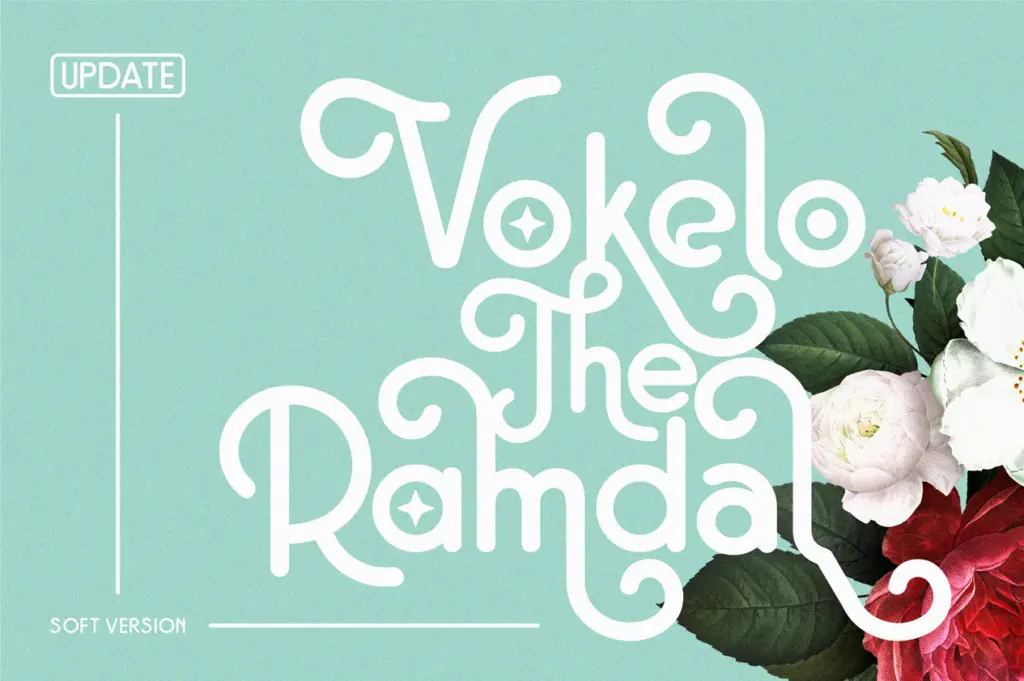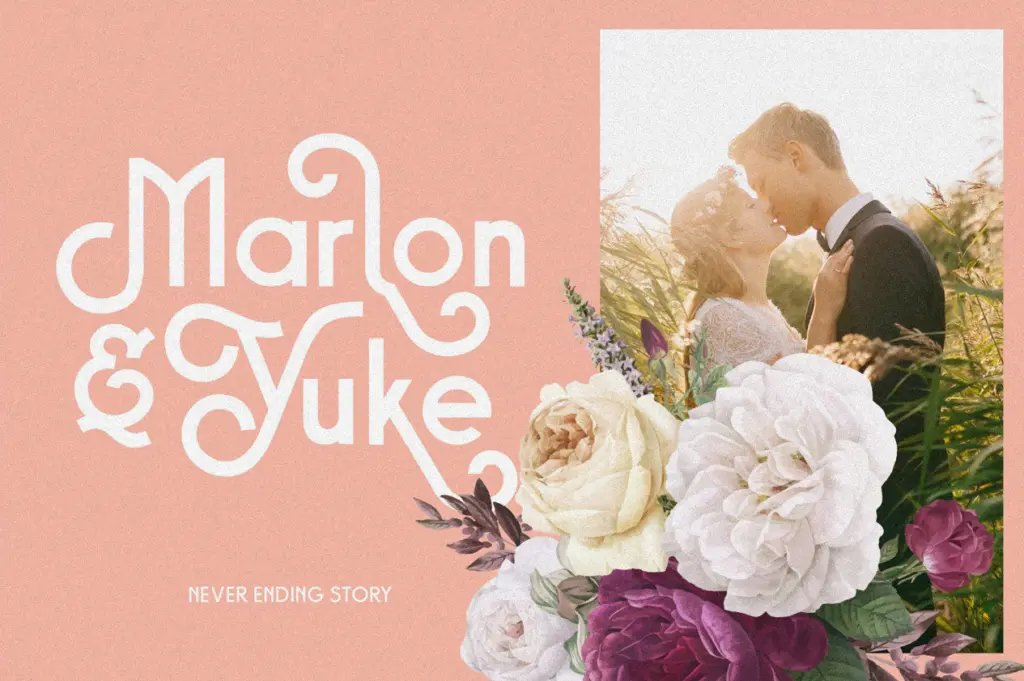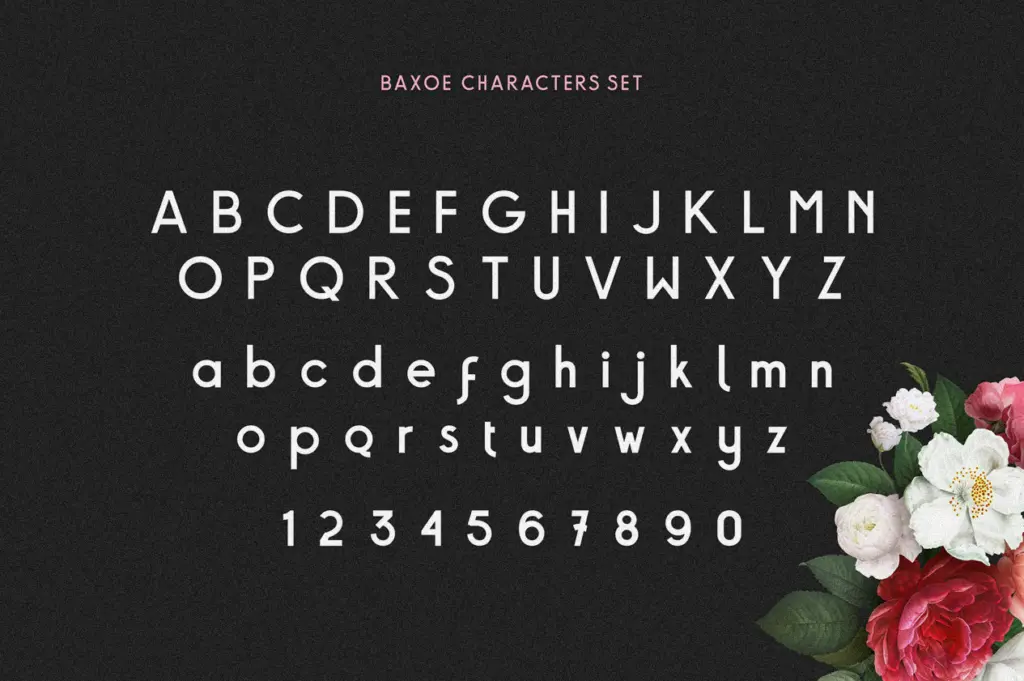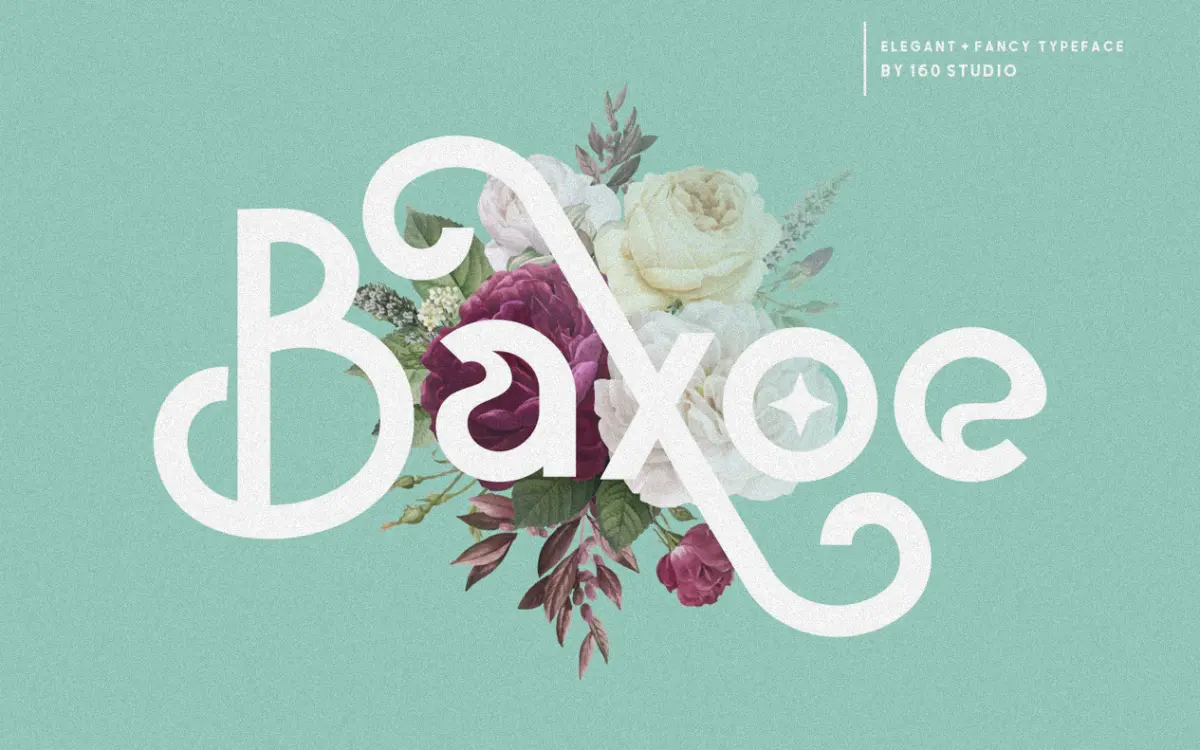
Baxoe sits in an odd but interesting corner of the sans serif category. The skeleton is simple and geometric enough to call sans, but the terminals curl and swash outward in a way that borrows from script lettering. Bowls are slightly compressed, stems taper at the joints, and several lowercase characters end in a small flick rather than a clean cut. That combination is the whole pitch: a font that reads as clean from a distance but shows some personality up close.
It doesn’t fully commit to either identity, and that’s worth naming plainly. It isn’t as calm as a true grotesque, and it isn’t as loose as a script. The result works best when you let the curls do the talking and use it sparingly, rather than expecting it to behave like a workhorse text face.
The set covers uppercase and lowercase, figures, punctuation, and a set of PUA-encoded special characters, plus alternate letterforms for a good number of glyphs. The alternates are the more useful part of the package: swapping in a curlier cap or a flicked lowercase lets you break up repeated letters in a short line, which matters because Baxoe’s default rhythm can look monotonous if every instance of a letter is identical. Access is manual, through the glyphs panel in Illustrator or Photoshop, so there’s no OpenType contextual switching doing the work for you — you’re choosing each swap by hand.
At small sizes the curls start to soften and the letters lose some of their crispness — this is not a font built for body copy or dense paragraphs. It wants space, generous tracking, and a short line of text to show what it does.
Baxoe is built for short-form, decorative jobs: a wordmark, a pull quote, a label on a jar, the headline of a postcard or invitation. The alternates make it genuinely useful for logotypes and monograms, where you can hand-pick letterforms to avoid repetition and get a more custom-drawn feel without commissioning custom lettering. It also suits quote graphics and social tiles where a few words need warmth without going fully script.
It’s less suited to anything that needs sustained reading — a menu with long descriptions, a book cover with a subtitle-heavy back panel, or UI text. The curling terminals that look distinctive at 60pt start to blur together at 10pt, and the font has no companion weights or a text-optimized cut to fall back on for those situations. Pair it with a plain, quiet sans or serif for supporting text, and keep Baxoe itself confined to the words that are meant to be looked at rather than read through.
- Alternates let you break up repeated letters for a more custom, hand-set feel
- Curled terminals give it a distinct personality without going fully script
- Decent European language coverage for packaging and stationery work
- Legibility drops off quickly at small sizes, so it's unsuited to body text
- Alternate access is manual glyph-panel swapping with no automatic contextual substitution
Baxoe is a decorative sans with enough character to stand out on a label or a short quote, thanks to its curling terminals and manual alternates. It isn't built for reading at length or at small sizes, so treat it as a display accent rather than a workhorse. Good for logotypes and short packaging text where you can hand-pick letterforms.